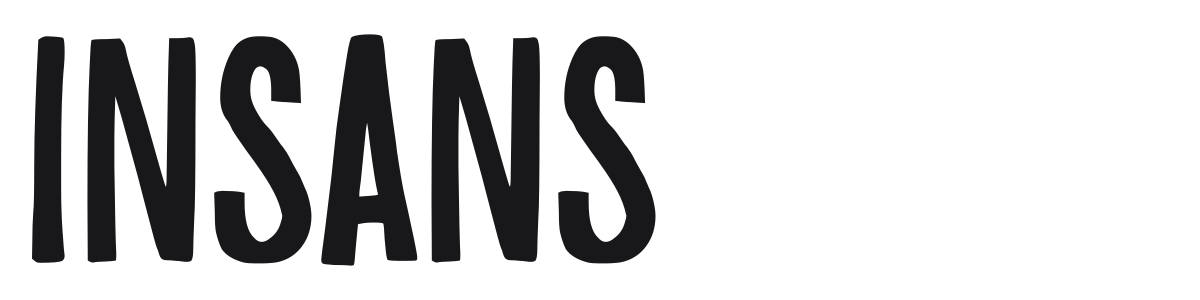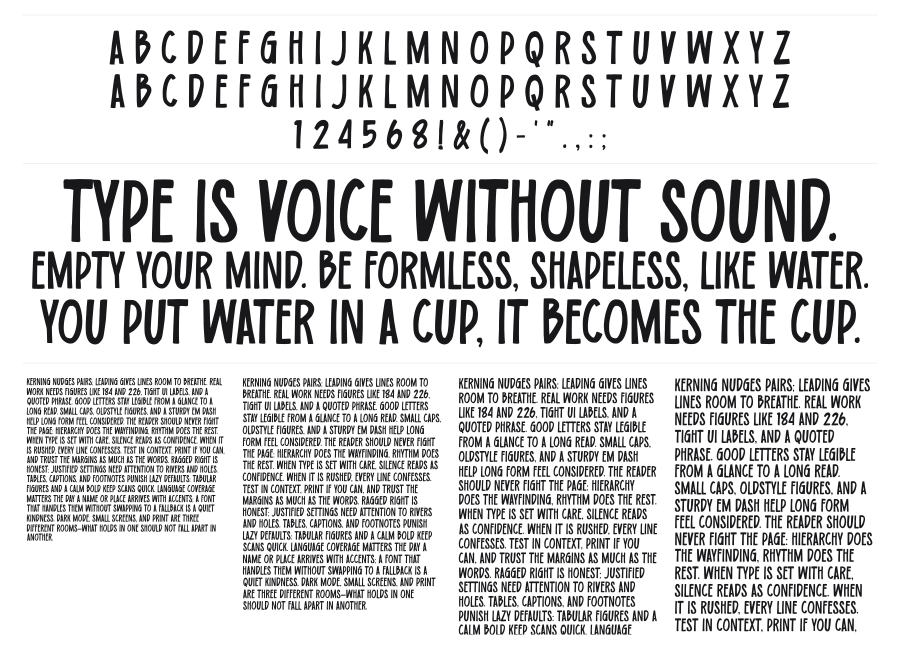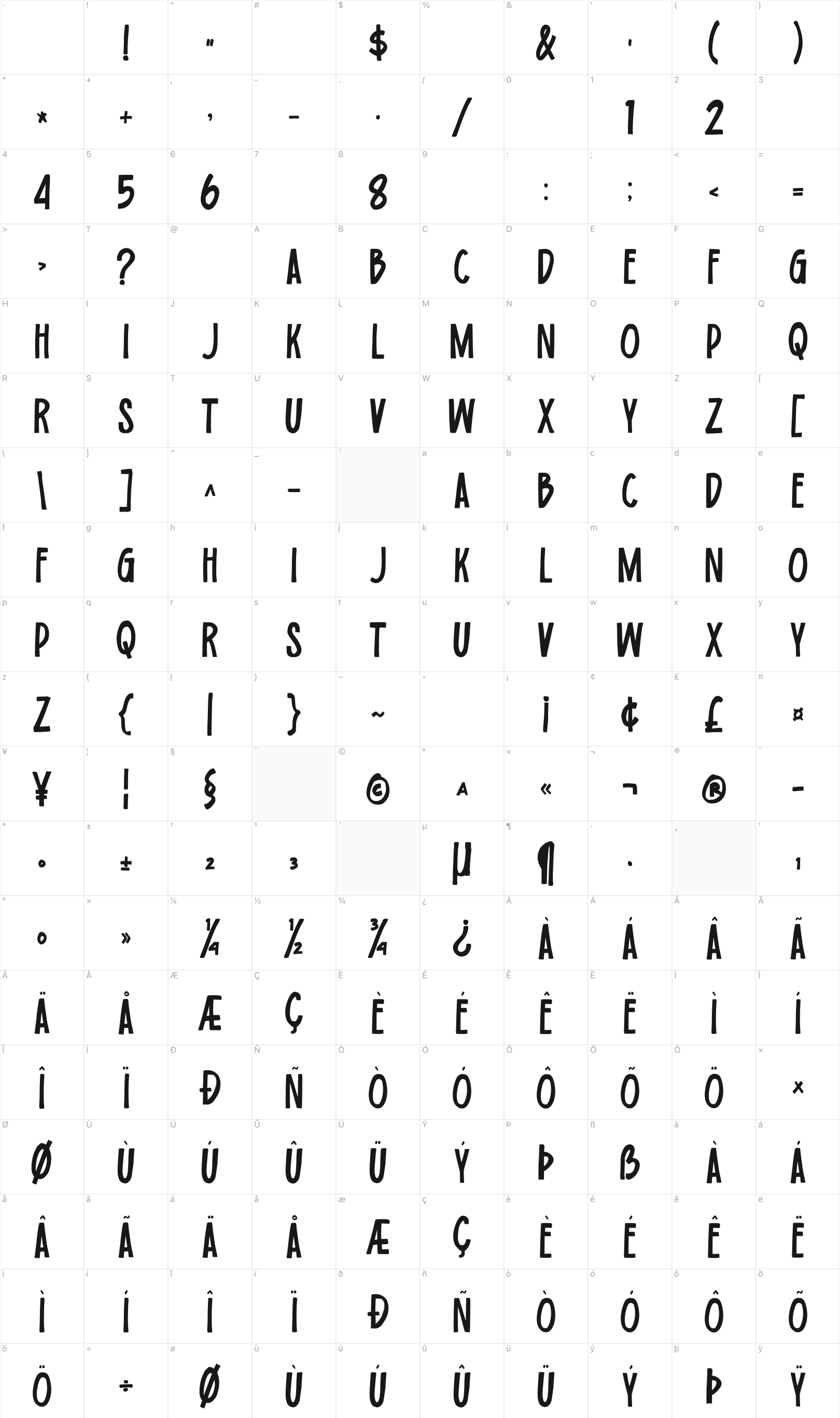
Insans
Insans is a bold hand-drawn sans with condensed proportions and just enough irregularity to feel alive. The heavy weight and tight spacing give it real punch at headline sizes, while the casual wobbly edges keep it approachable rather than aggressive. It works well anywhere you want energy without taking itself too seriously.